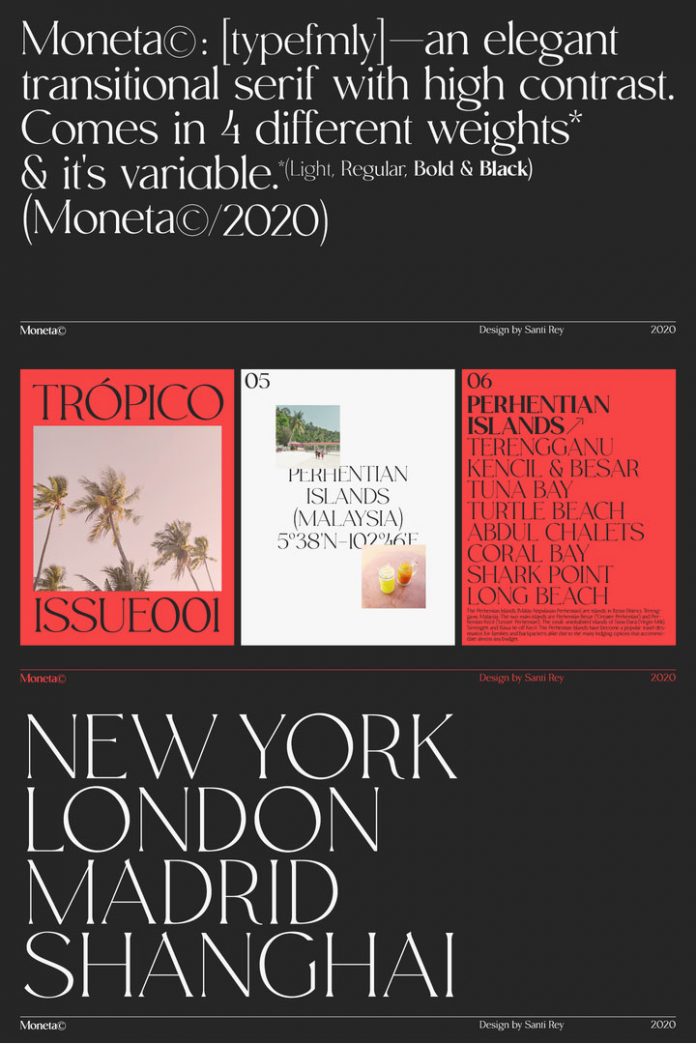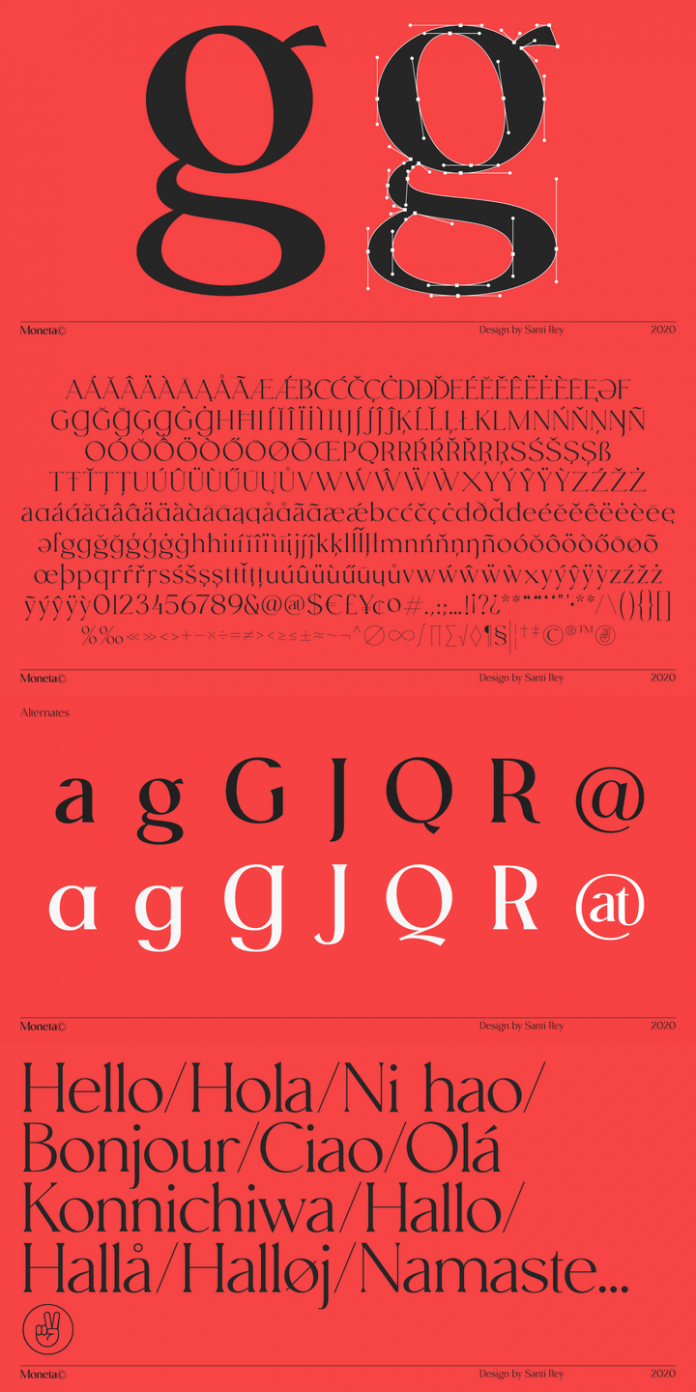
Moneta, a classic serif font family designed and published by typeface designer Santi Rey.
Designed in 2019 and published in the early days of 2020, Moneta is a new serif font family with a classic and legible appearance. The family includes four weights (Light, Regular, Bold, and Black) and comes with plenty of OpenType features such as several ligatures and alternates. Learn more below or click on the following link to purchase the family on MyFonts.
Moneta font family by Santi Rey.
Inspired by traditional broad-edged pen script, the Moneta font family is based on an elegant transitional serif typeface with high contrast. Due to the absence of true Italics, we recommend the typeface for titles and short text sections. It performs quite well in magazines, branding projects, and simply everything that asks for elegant and classic serif typography. Moneta’s well kerning ensures great readability in any size. The character set currently consists of 398 glyphs and supports multiple languages including Western Europe, Central/Eastern Europe, Baltic, Turkish, and Romanian. You can get the family as both desktop font and webfont. To learn more, just follow the link below.
Moneta font family by Santi Rey.